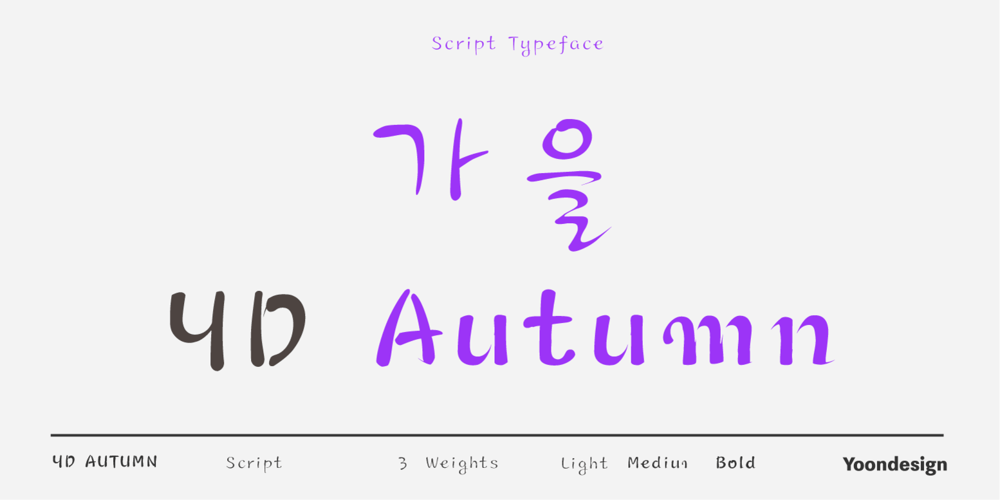
YD Autumn Font Family was designed by Yoon Design Team and published by Yoon Design. YD Autumn contains 2 styles and family package options. YD Autumn Family is an elegant handwritten calligraphy font that inspired by autumn. The flexibility and broad range of styles that resembles sophisticated and an autumn breeze. This font family has 3 styles. Also it can be used posters and every kind of graphic design works.